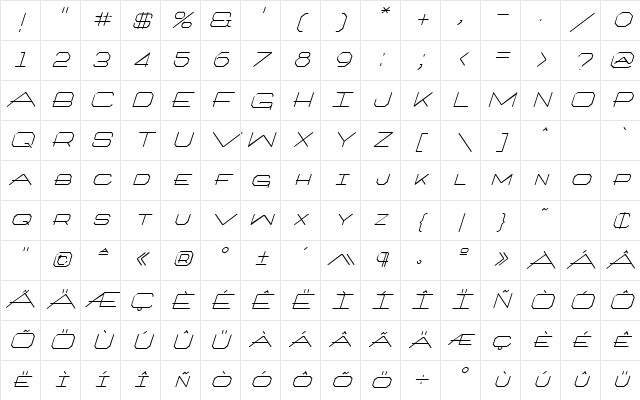
Complete Architext Italic glyph index. Displaying only characters natively supported by Architext Italic font.
Architext is a composed and adaptable typeface that performs quietly and consistently across a wide range of design contexts. The slanted form adds forward momentum and visual energy.
Pro Tip: Use Architext for emphasis, pull quotes, and subheadings where its slanted energy can add rhythm to the layout.